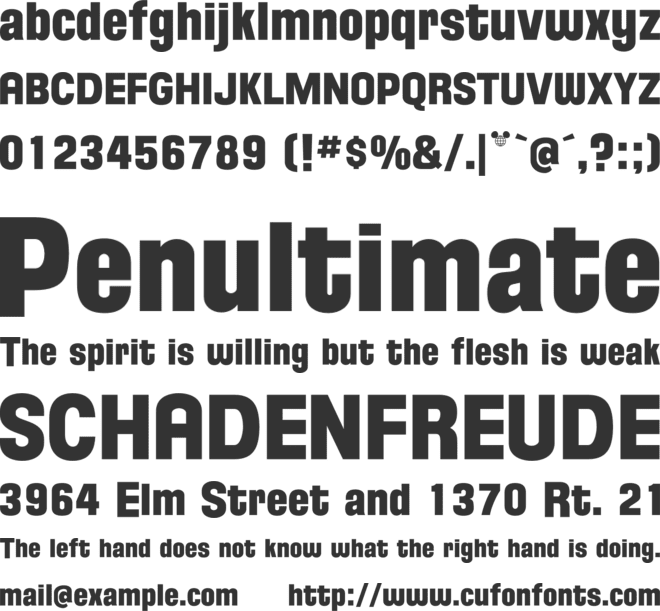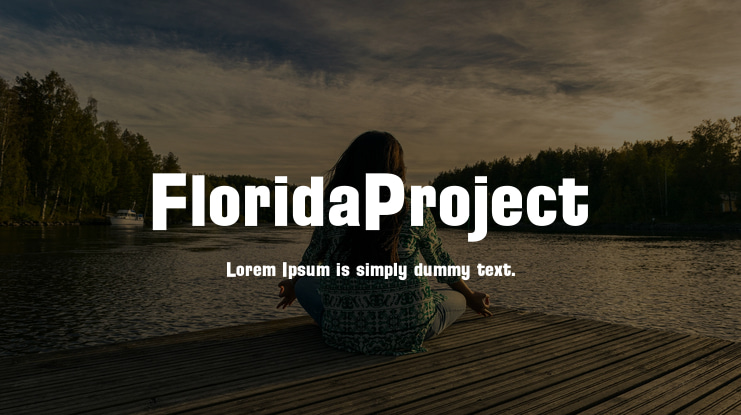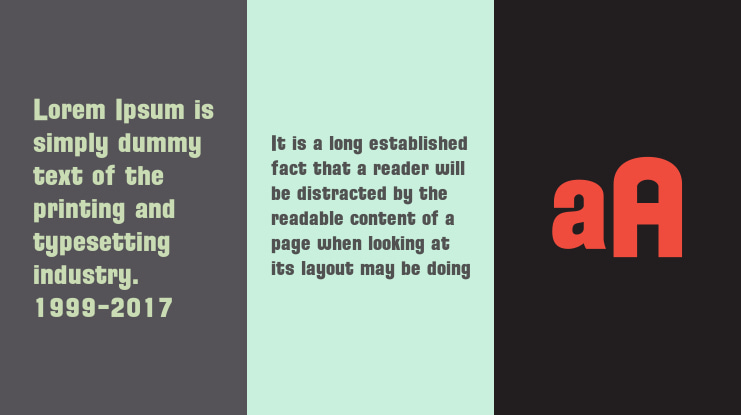
FloridaProject Font Family
Justin Callaghan (with Spencer Parks)
Florida Project is based on the Walt Disney World logotype in use from the 1970's to mid-1990's. http://mickeyavenue.com/fonts/florp/